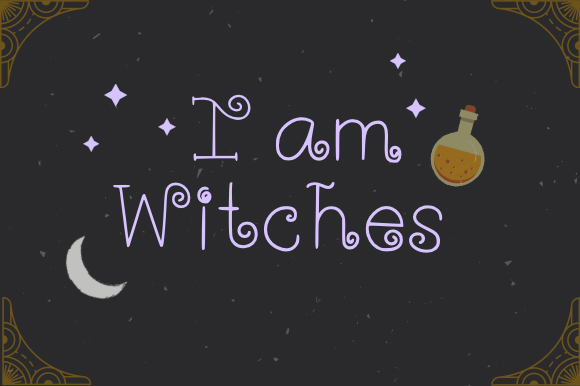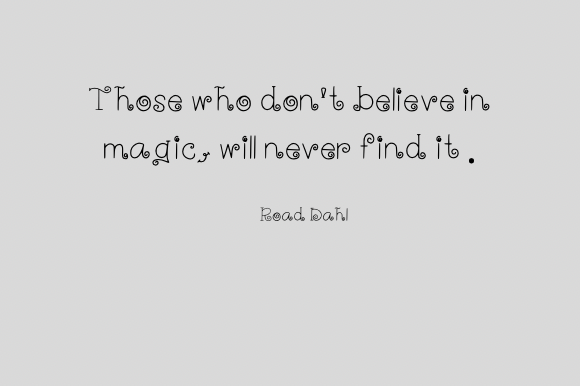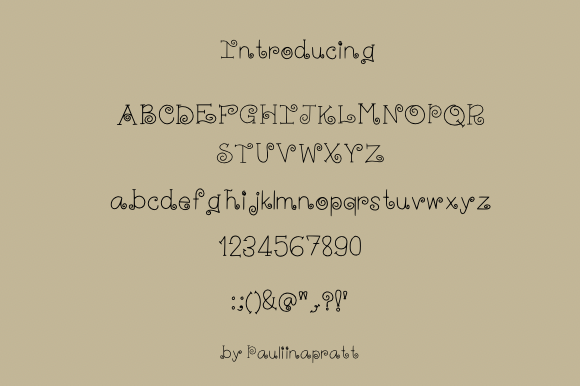
I Am Witches Font
I Am Witches Font : A Cute and Whimsical Handwritten Font
I Am Witches is a charming handwritten font that combines cuteness with whimsy. This versatile typeface is perfect for a wide range of creative and crafty projects, adding a touch of playfulness to your designs.
Key Features of I Am Witches Font
• Cute Handwritten Style: Adds a whimsical and playful touch to your designs
• Well-Balanced Characters: Ensures readability while maintaining a fun aesthetic
• Versatile Application: Suitable for greeting cards, posters, invitations, and more
Perfect for Multiple Design Projects
I Am Witches’ adaptability makes it an excellent choice for:
Enhancing Creative Expression
With I Am Witches, you can infuse your designs with a sense of lightheartedness and imagination. Its playful characters and distinctive appearance make it a valuable asset for anyone looking to add a touch of whimsy to their creative work.
Digital and Print Versatility
Whether you’re creating digital designs or print materials, I Am Witches maintains its charm and readability. Use it for:
• Engaging blog post titles
• Fun email headers
• Quirky product packaging
• Memorable logo designs for child-friendly brands
Customization Options
I Am Witches offers a range of customization options, allowing you to tailor your text to match your creative vision. This flexibility empowers you to create designs that perfectly align with your artistic preferences and project needs.
I Am Witches is more than just a font; it’s a creative tool that brings cuteness and whimsy to your design projects. Its handwritten style inspires designs that resonate with playfulness and imagination. By incorporating I Am Witches into your designs, you can create visually appealing and memorable content that engages your audience. Whether you’re a professional designer or someone looking to add a fun touch to personal projects, I Am Witches offers the perfect blend of charm and functionality. Consider pairing I Am Witches with clean sans-serif fonts for contrast or complementing it with other script fonts for a dynamic typographic palette. This versatility allows you to create designs that are both whimsical and harmonious across various mediums and industries. Embrace the playful charm of I Am Witches today and watch as it transforms your creative ideas into delightful and engaging designs that capture the hearts of your audience!